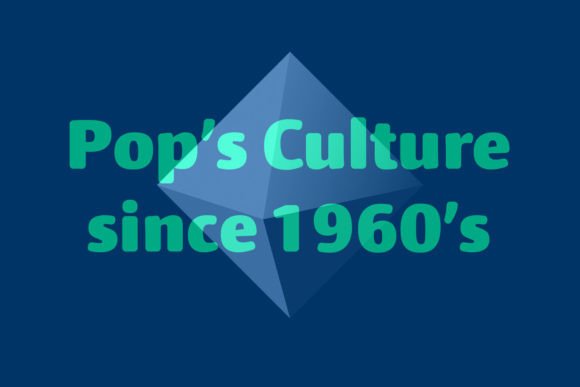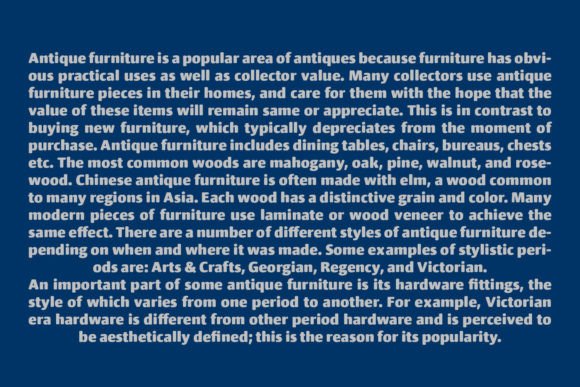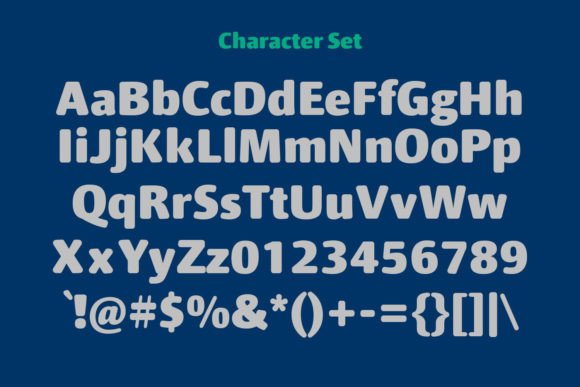
Introduction to Portilla Rounded Bold Font Font
Fonts play a crucial role in design, and the Portilla Rounded Bold Font font is a typeface that brings both character and versatility to any project. Whether you’re working on a branding project, a website, or a print design, the Portilla Rounded Bold Font font offers a unique style that can elevate your work.
| 📌 Font Name | Portilla Rounded Bold Font |
| 👤 Author | Maulana Creative |
Portilla is a modern round sans serif font.
Bold stroke, fun character with a bit of ligatures and alternates To give you an extra creative work.
Key Features of Portilla Rounded Bold Font Font
Why Choose Portilla Rounded Bold Font Font?
The Portilla Rounded Bold Font font is more than just a typeface – it’s a design tool that helps you communicate your message with style and clarity. Its unique character set and versatile design make it suitable for a wide range of applications, from elegant invitations to bold headlines.
With its carefully crafted letterforms and balanced proportions, the Portilla Rounded Bold Font font ensures readability and visual appeal across all mediums.
What makes Portilla Rounded Bold Font font special?
The Portilla Rounded Bold Font font stands out with its unique design, exceptional readability, and versatility across various design applications.